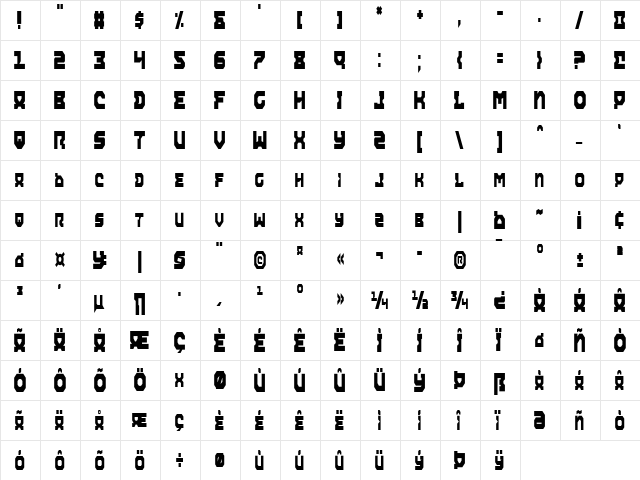
Airacobra Condensed Condensed
Design Context for Airacobra Condensed Typeface
Airacobra Condensed is a composed and adaptable typeface that performs quietly and consistently across a wide range of design contexts. Its narrow stance lets it pack a punch even in space-constrained designs.